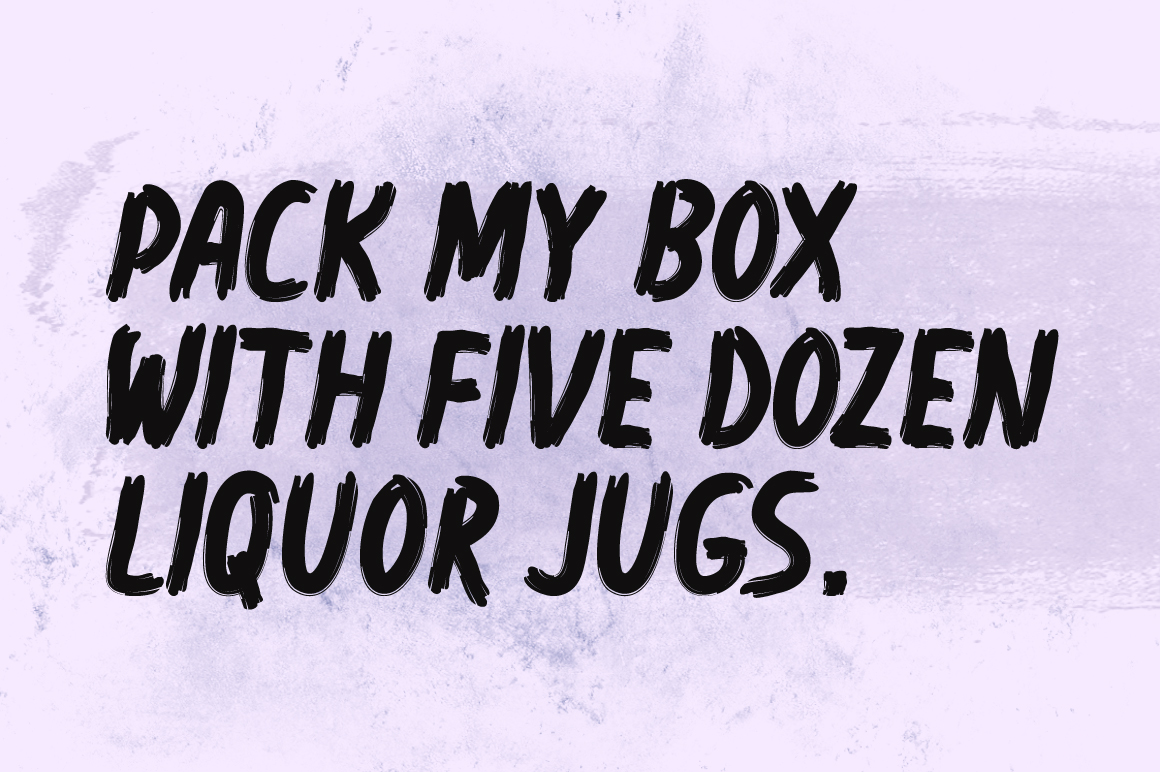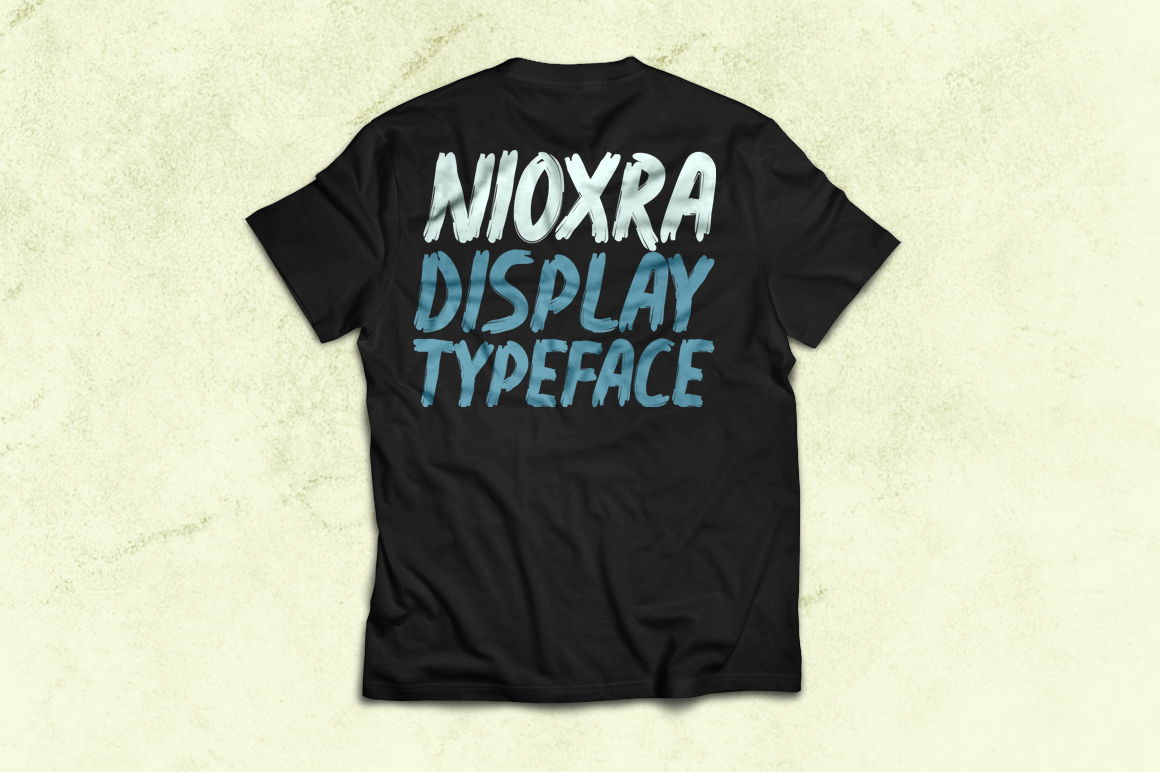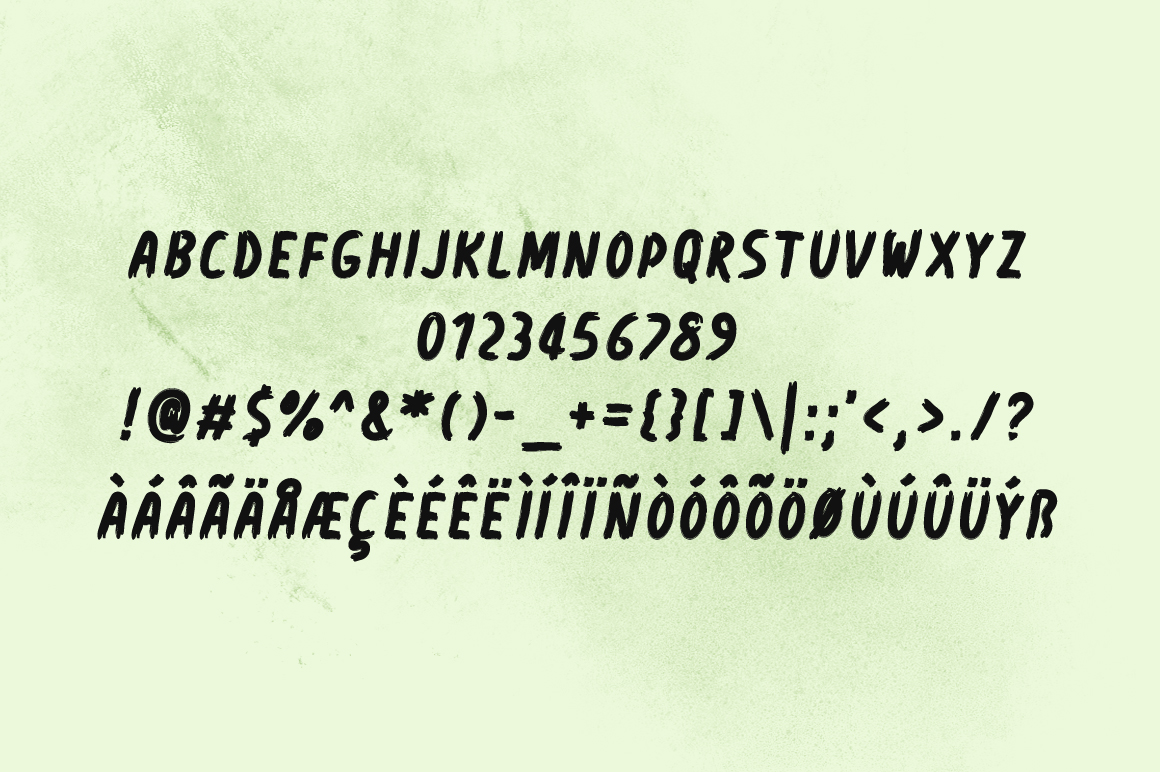
Introduction to Nioxra Font
Nioxra is a fantastic display font, made up of textured brush strokes.
Nioxra will be at home in any number of projects, and is a great way to avoid a mechnical, cookie-cutter look Add Nioxra to your font collection, as it’s a surefire way to diversify your design options.
Nioxra Font offers exceptional quality and versatility, making it a valuable addition to your design toolkit. Whether you’re creating for personal projects or commercial use, Nioxra Font delivers professional results.